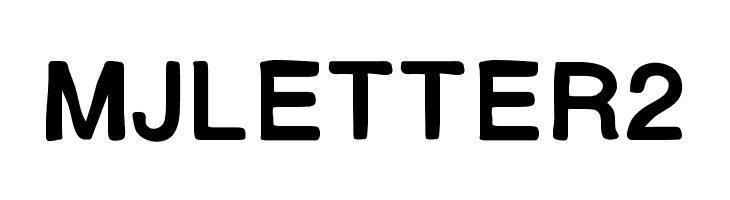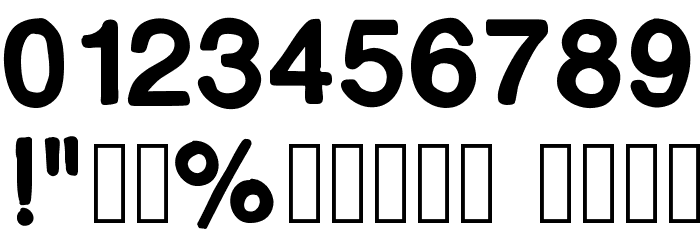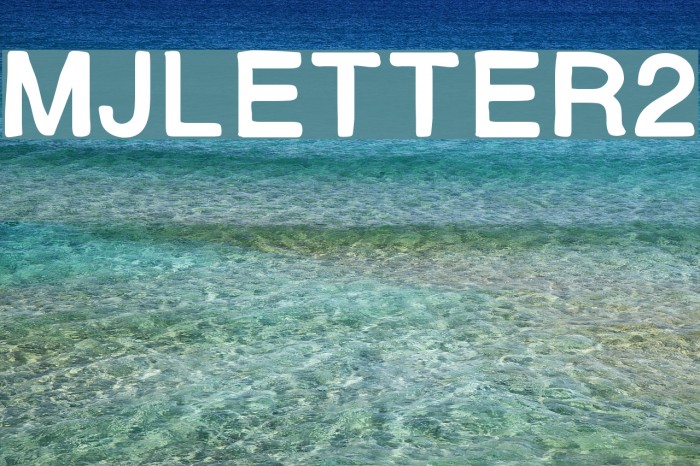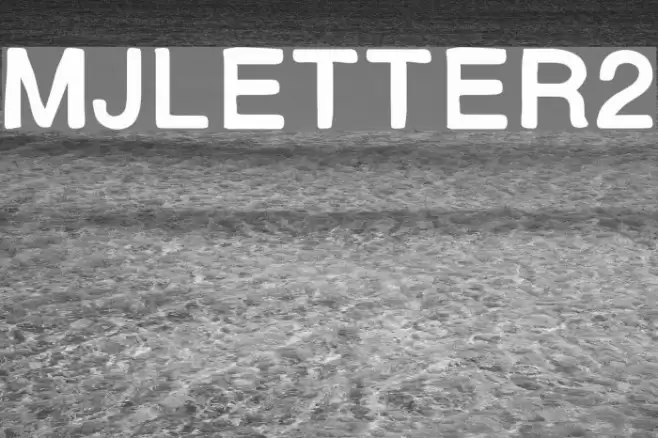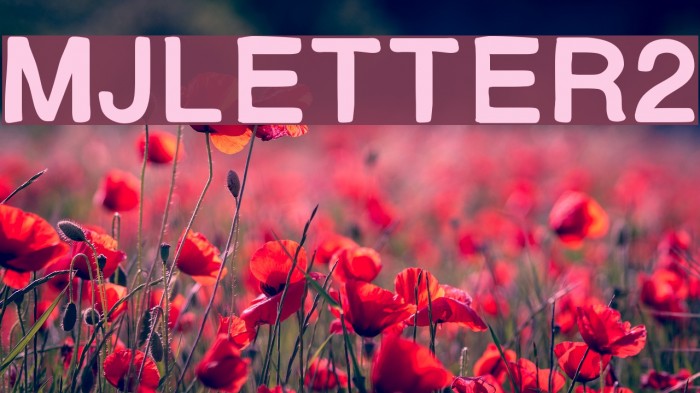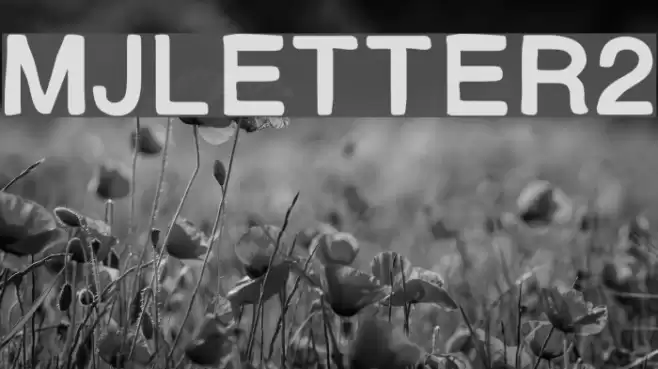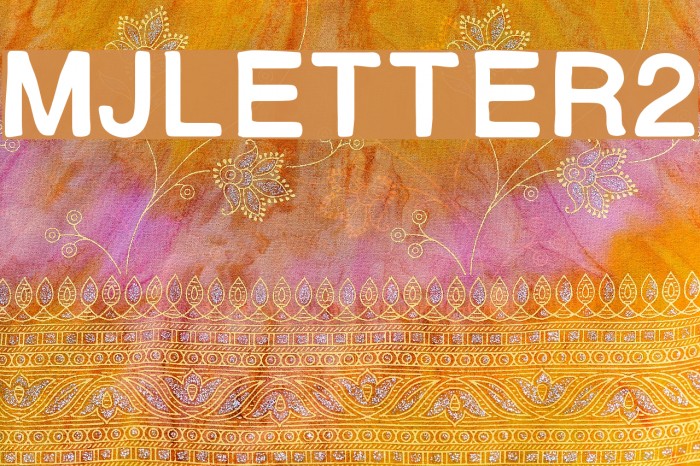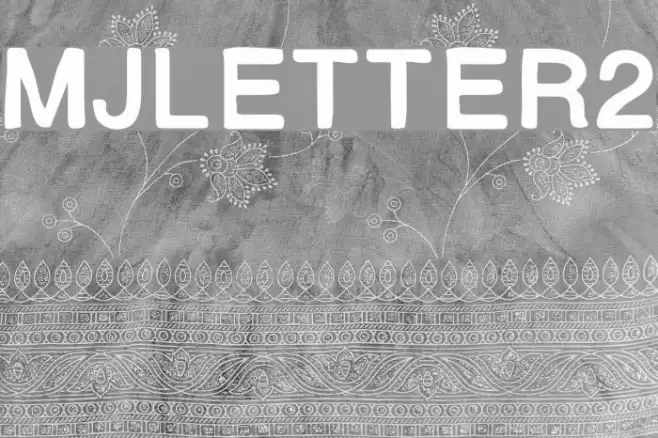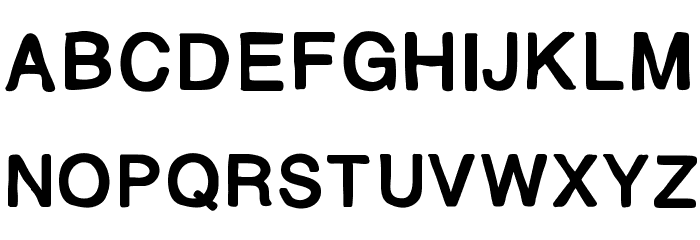
MJletter2 Font
MJletter2 Description
This font features bold, rounded characters with a playful and approachable style. The letters are evenly spaced, providing a clean and modern appearance. The uppercase and lowercase letters maintain a consistent weight, contributing to a cohesive look. The numerals are clear and distinct, making them easily readable. Special characters are included, adding versatility to the font. Its boldness and rounded edges give it a friendly and inviting feel, suitable for various design projects.